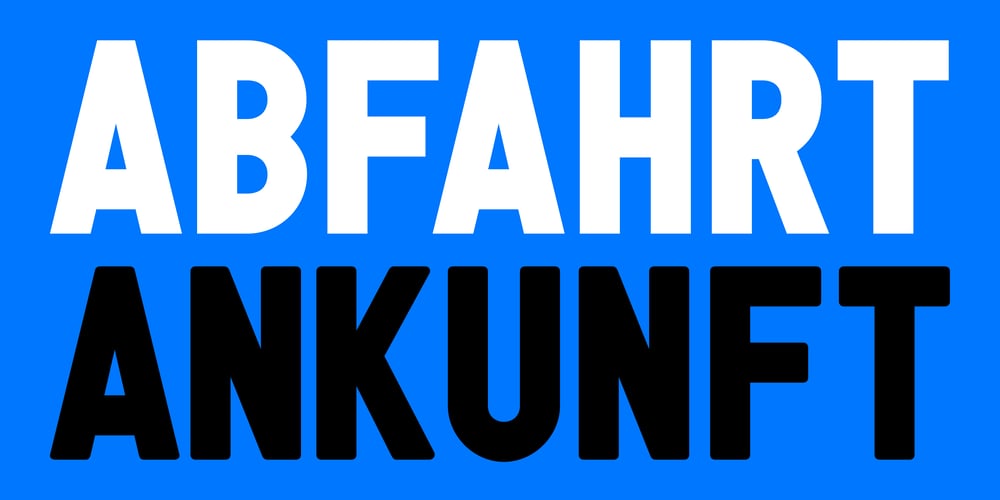
Guida Font Family was designed by BANK – Sebastian Bissinger and Laure Boer and published by Colophon Foundry. Guida contains 14 styles and family package options. As passionate travelers, Sebastian Bissinger and Laure Boer (BANK™) extensively reference, collect and observe typefaces applied to road, train and wayfinding vernacular on their travels. It was through this constant research that they fell upon the initial reference for Guida — an Italian license plate used somewhere between 1980 – 1990, existing only in UPPERCASE and numerical forms.The reference contained forms that did not follow optically-driven or corrected expectation, but were drawn through rules of a mechanically dictated process, causing an optical but charming idiosyncratic sensibility. Through testing on a variety of commissions, including a series of video essays that BANK™ realized for Time Magazine, New York, BANK™ refined many iterations and extended the typeface to include a variety of extra glyphs, forms and alternates, allowing type users further depth and choice.Guida is available in four weights — Light, Regular, Bold and Bold — with corresponding italics over two families — Guida, with its characteristic bevelling; and Guida Sharp, a non-bevelled variant. Both have accompanying Monospace cuts. Further help from Milène Laforge means that Guida is now available to license in both Standard (‘STD’) and Professional (‘PRO’) versions, the latter containing a range of additional OpenType features and array of alternate characters.